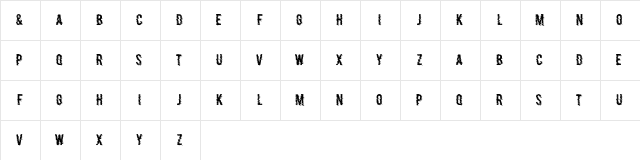
P&F Regular
Design Context for P&F Typeface
P&F is a composed and adaptable typeface that performs quietly and consistently across a wide range of design contexts.